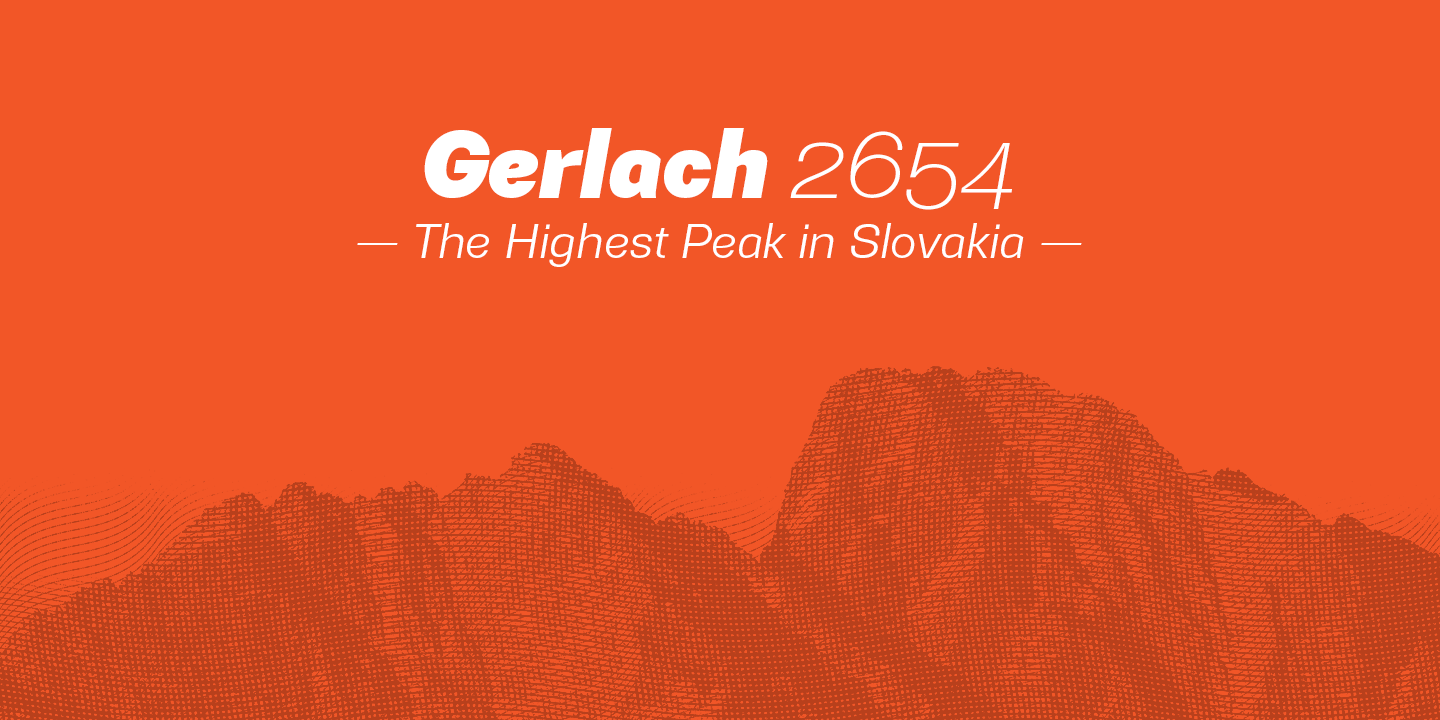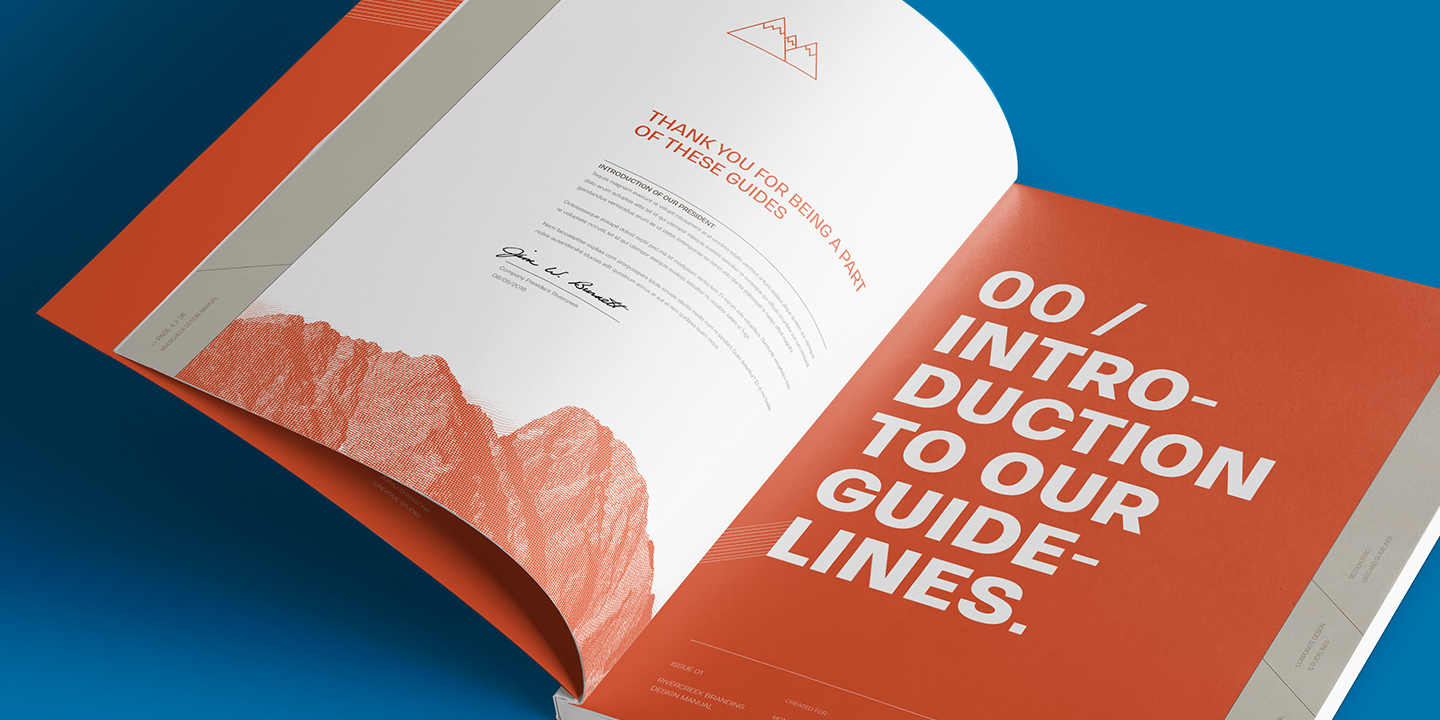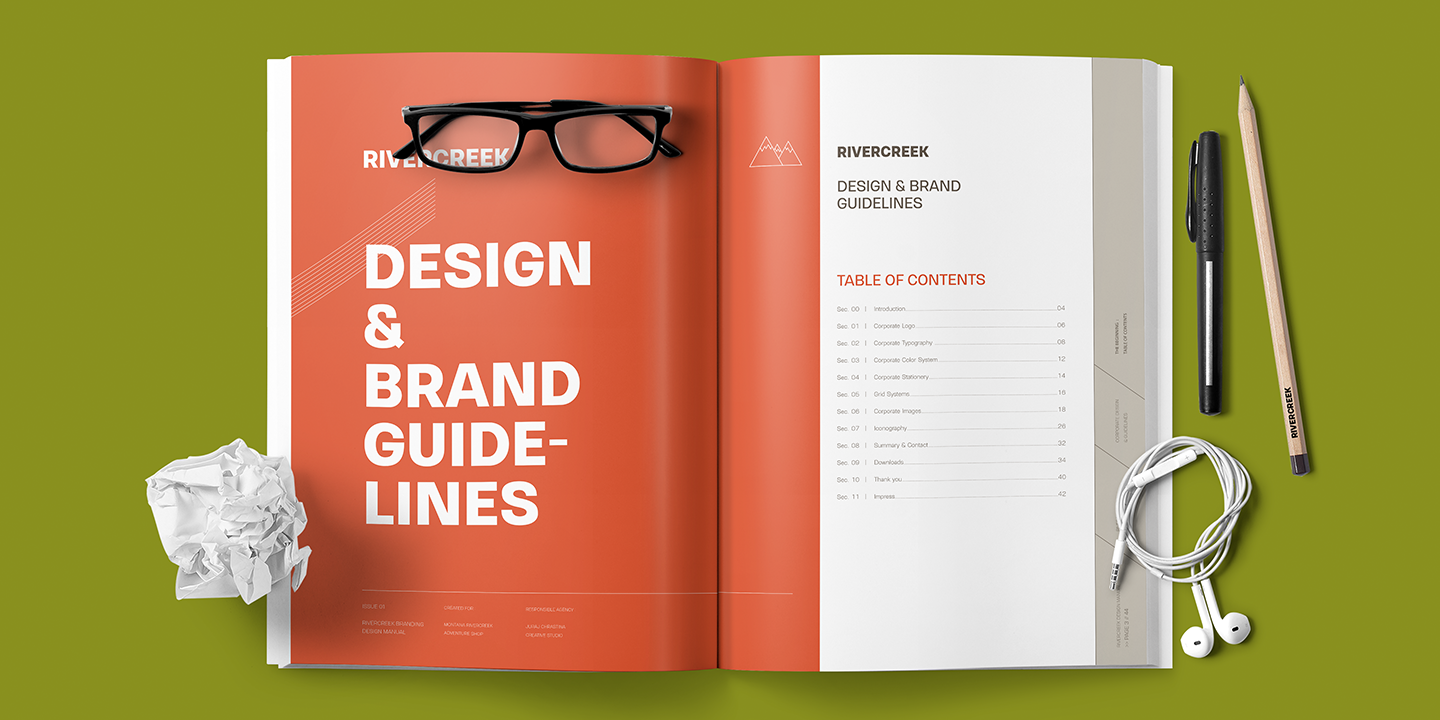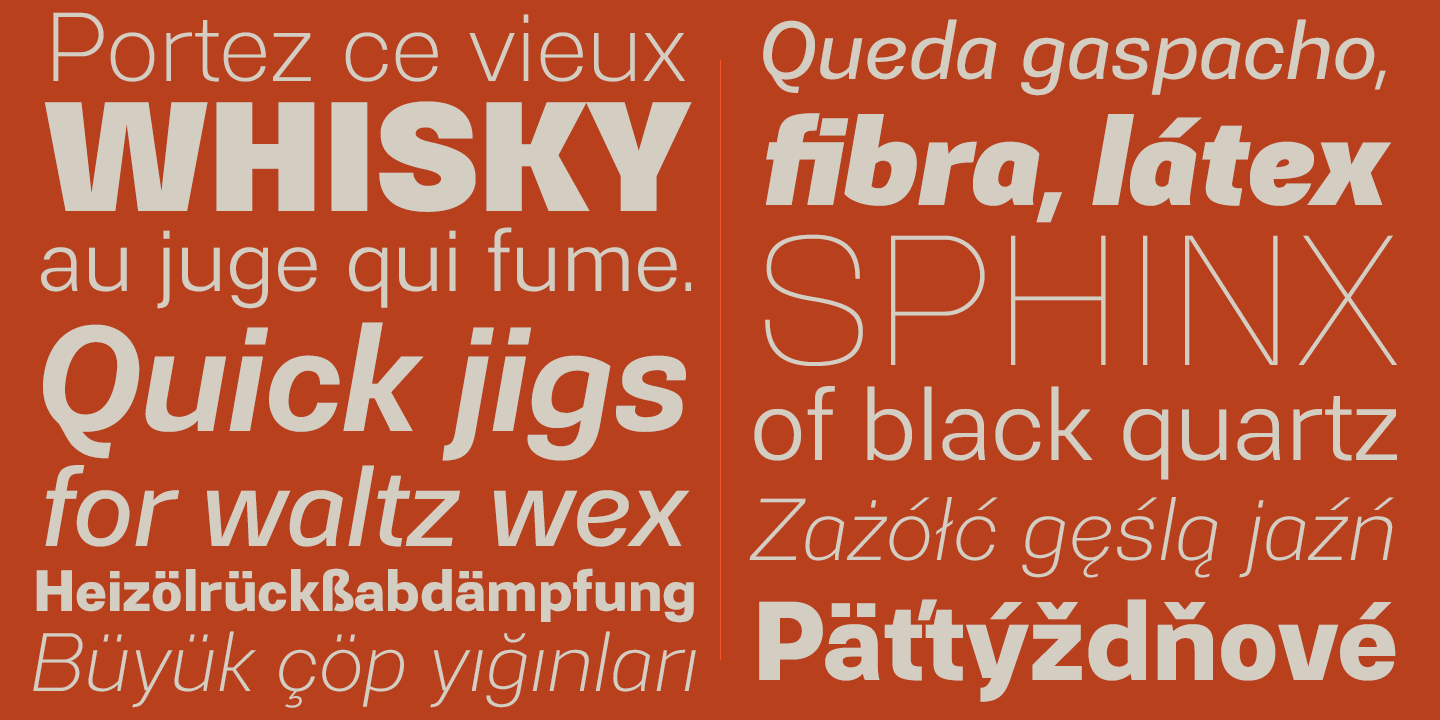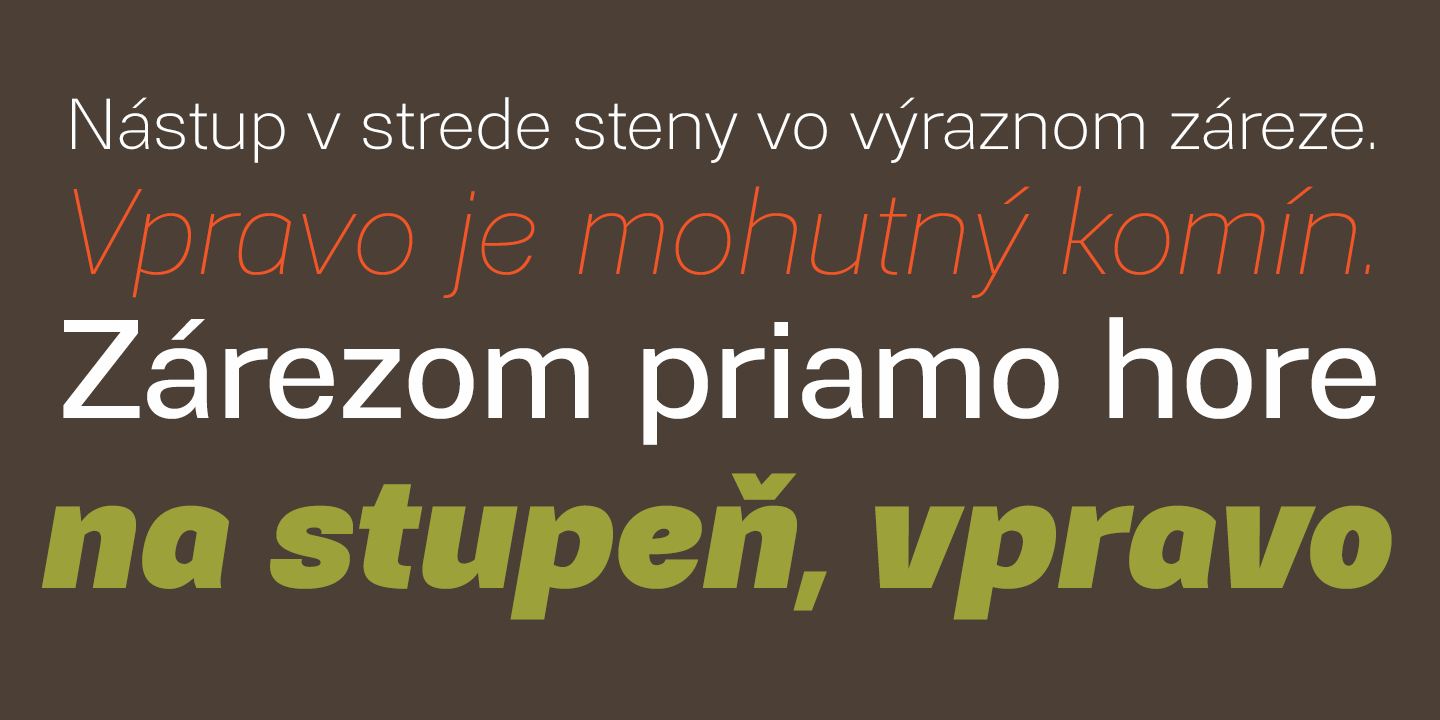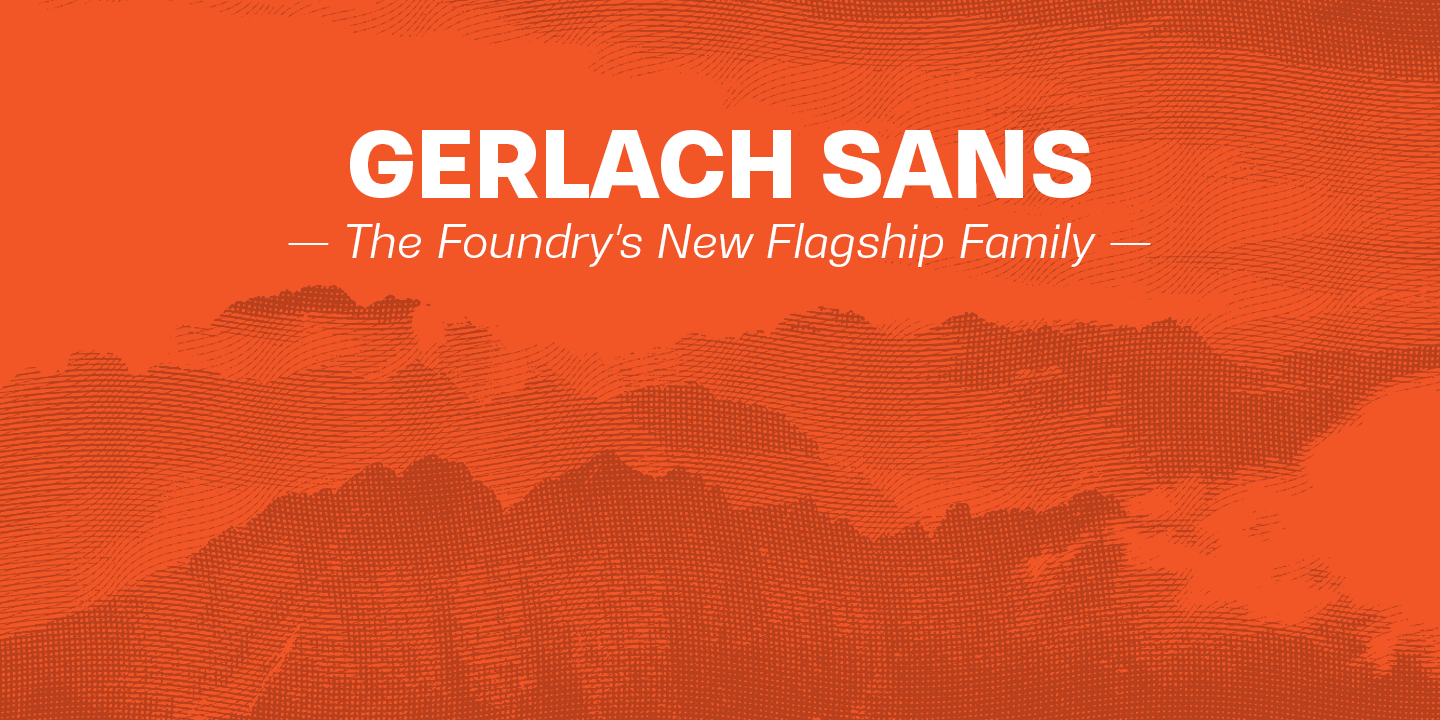
Gerlach Sans Family (16 fonts)
From Juraj Chrastina Type
The large character set accessible through OpenType features provides the designer with a wealth of opportunities and supports a wide range of Latin-based languages. It is stuffed up with tabular and proportional figures, old-style and lining figures, fractions, superscripts and subscripts, ordinals, case-sensitive forms, circled numbers, arrows, icons and many more.
Combining legibility and usability of its grotesque style with cool elegance, Gerlach Sans provides a strong partner for your print and web project.